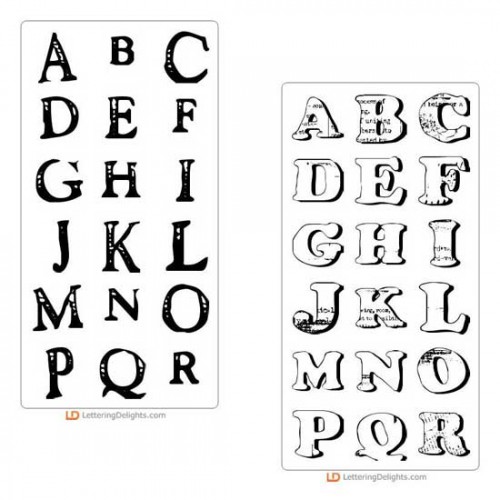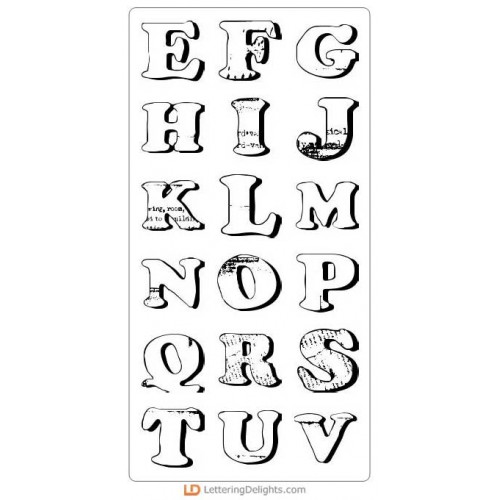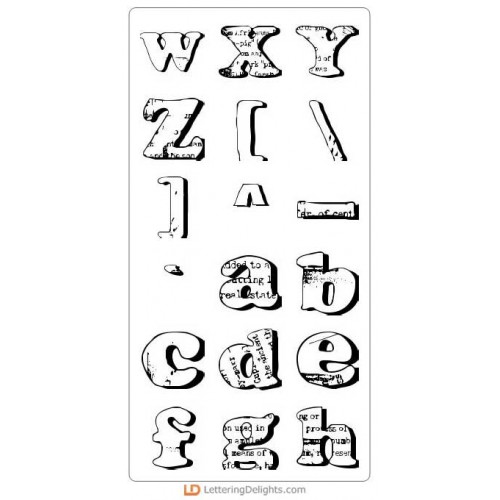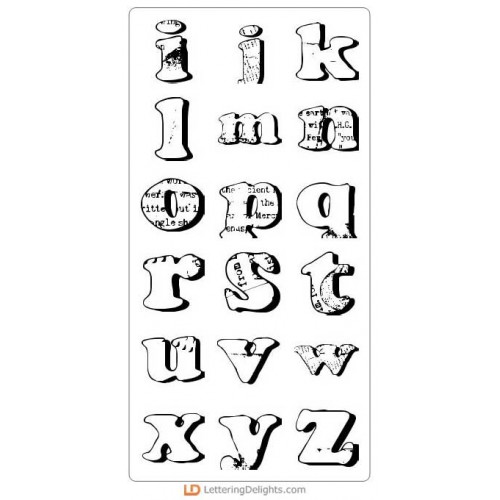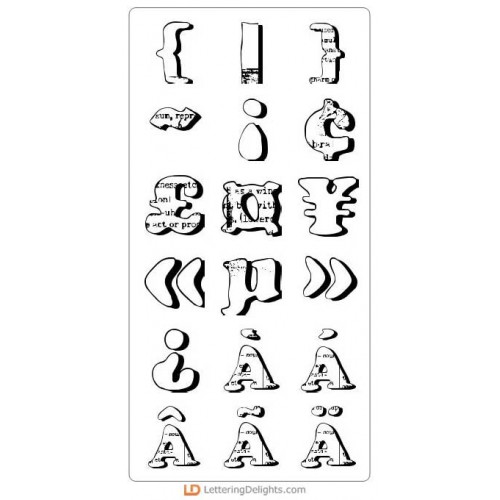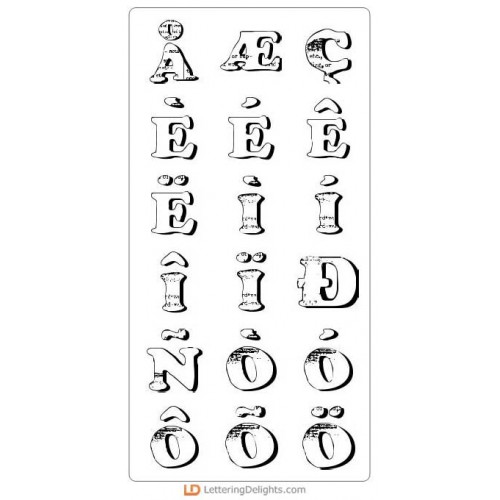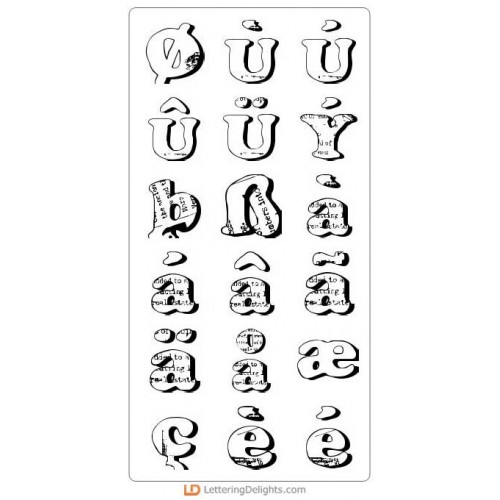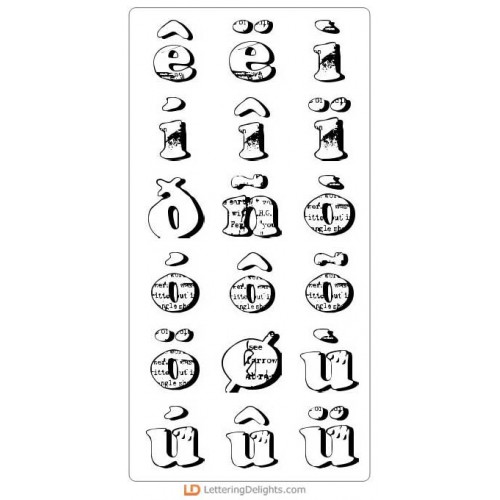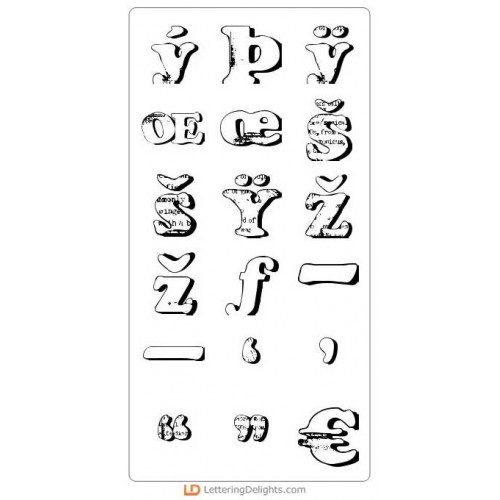
Fun fonts for fun people! LD Leuco Podge is a fun new mixed media style font. With thick letters, a collage face and a drop shadow, this font gives you a mixed media look without the effort! And since sometimes our words come out in a jumble...why not have a font that matches with LD Jumble!